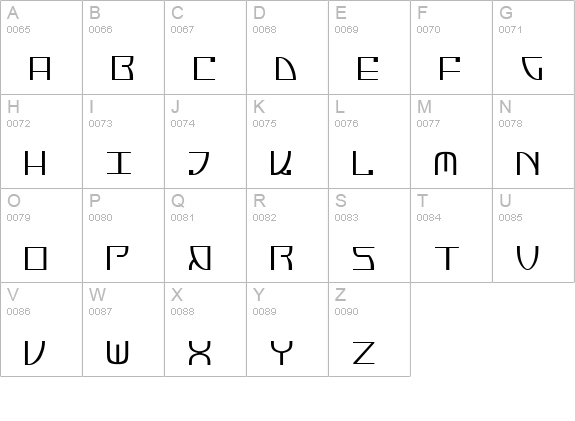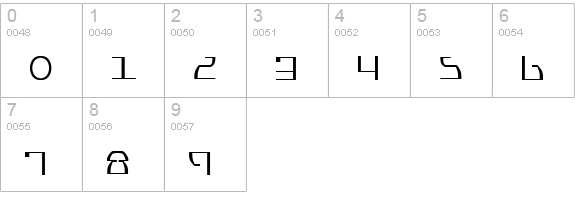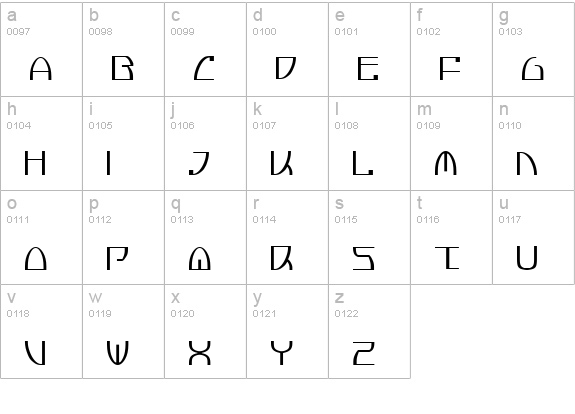
Jumptroops Condensed is a distinctive, condensed-width variant in the Jumptroops typeface family \xE2\x80\x94 well suited to design and typography projects.
Jumptroops Condensed font is a modern and sleek typeface that exudes energy and sophistication. Its condensed design makes it perfect for headlines, titles, and branding projects that require a bold and dynamic look. The sharp edges and clean lines give this font a futuristic and cutting-edge aesthetic, making it ideal for projects that want to convey a sense of innovation and forward-thinking. Best of all, Jumptroops Condensed font is available for free download at FontsMarket.com. This means you can easily add this stylish and versatile font to your design arsenal without any cost. Whether you're working on a poster, website, or logo, Jumptroops Condensed font will elevate your project and help you stand out from the crowd. Download it today and unleash your creativity with this striking typeface.